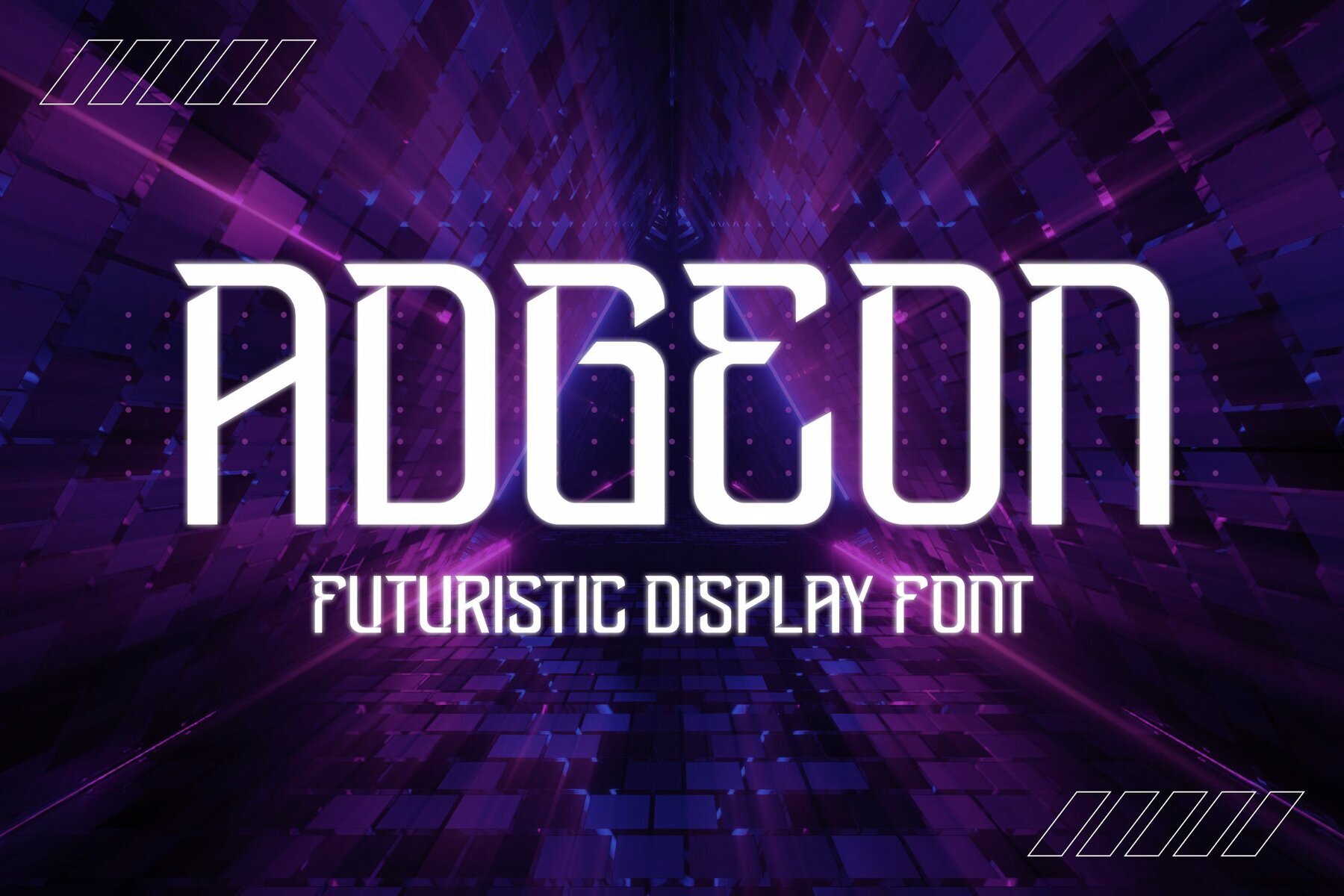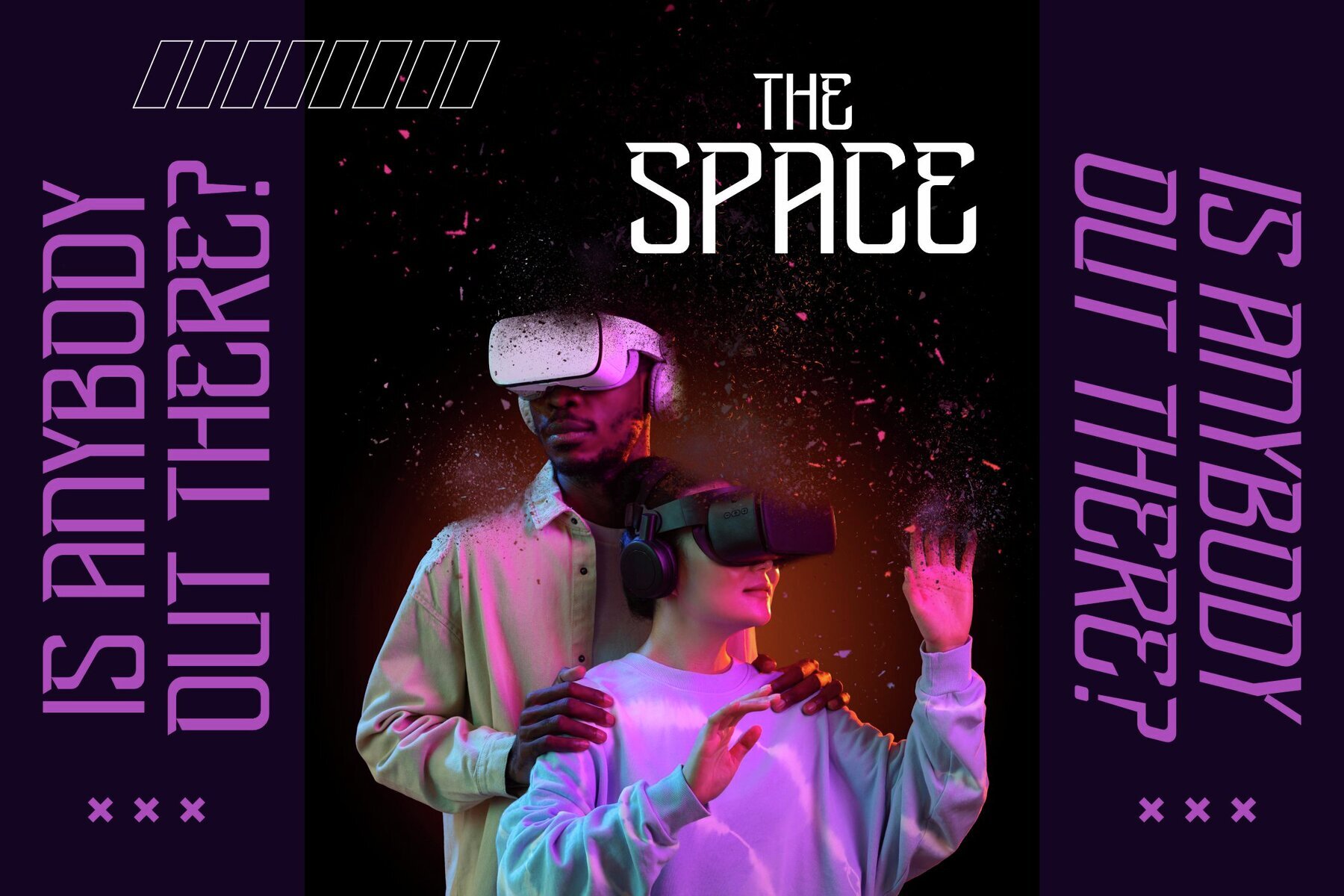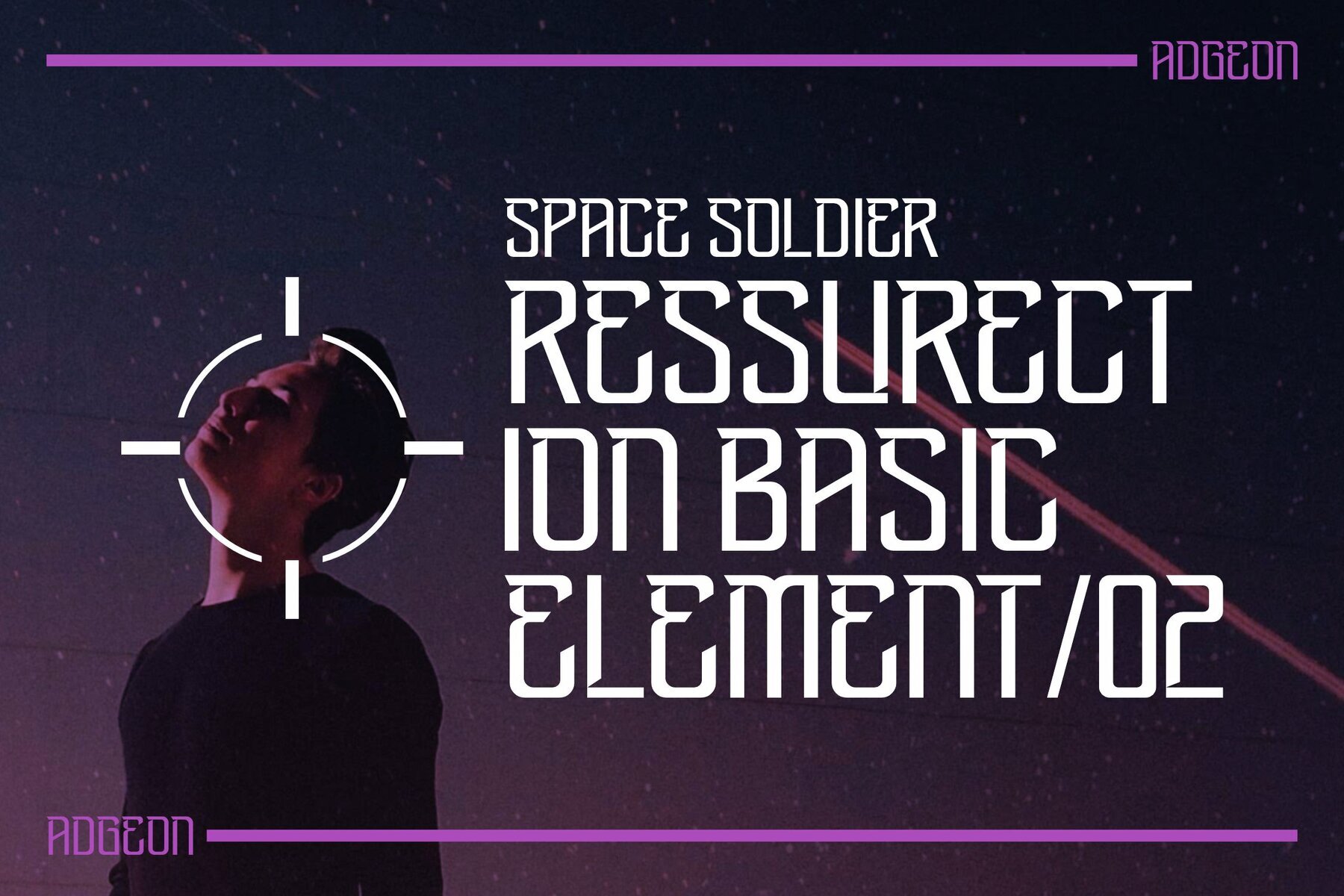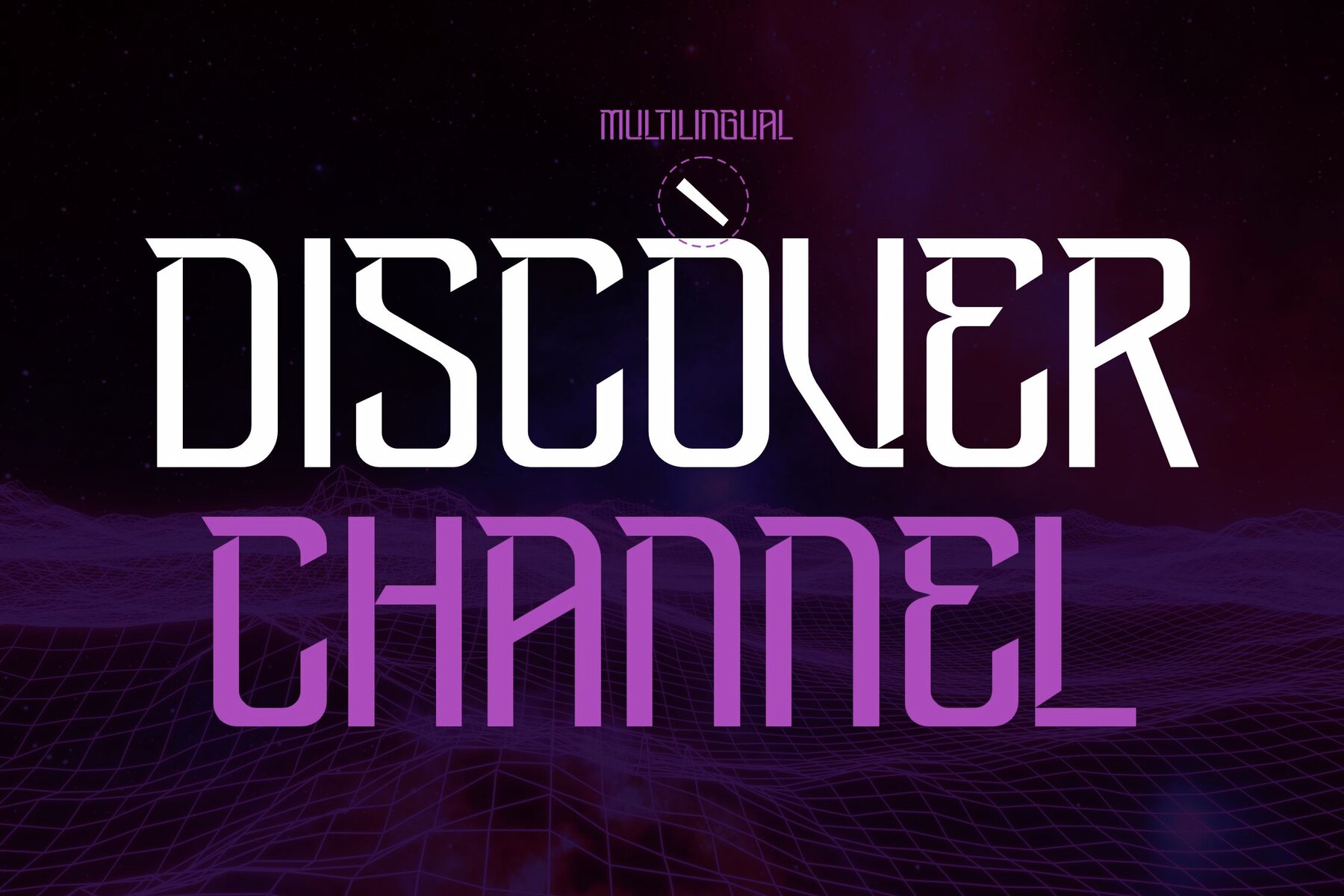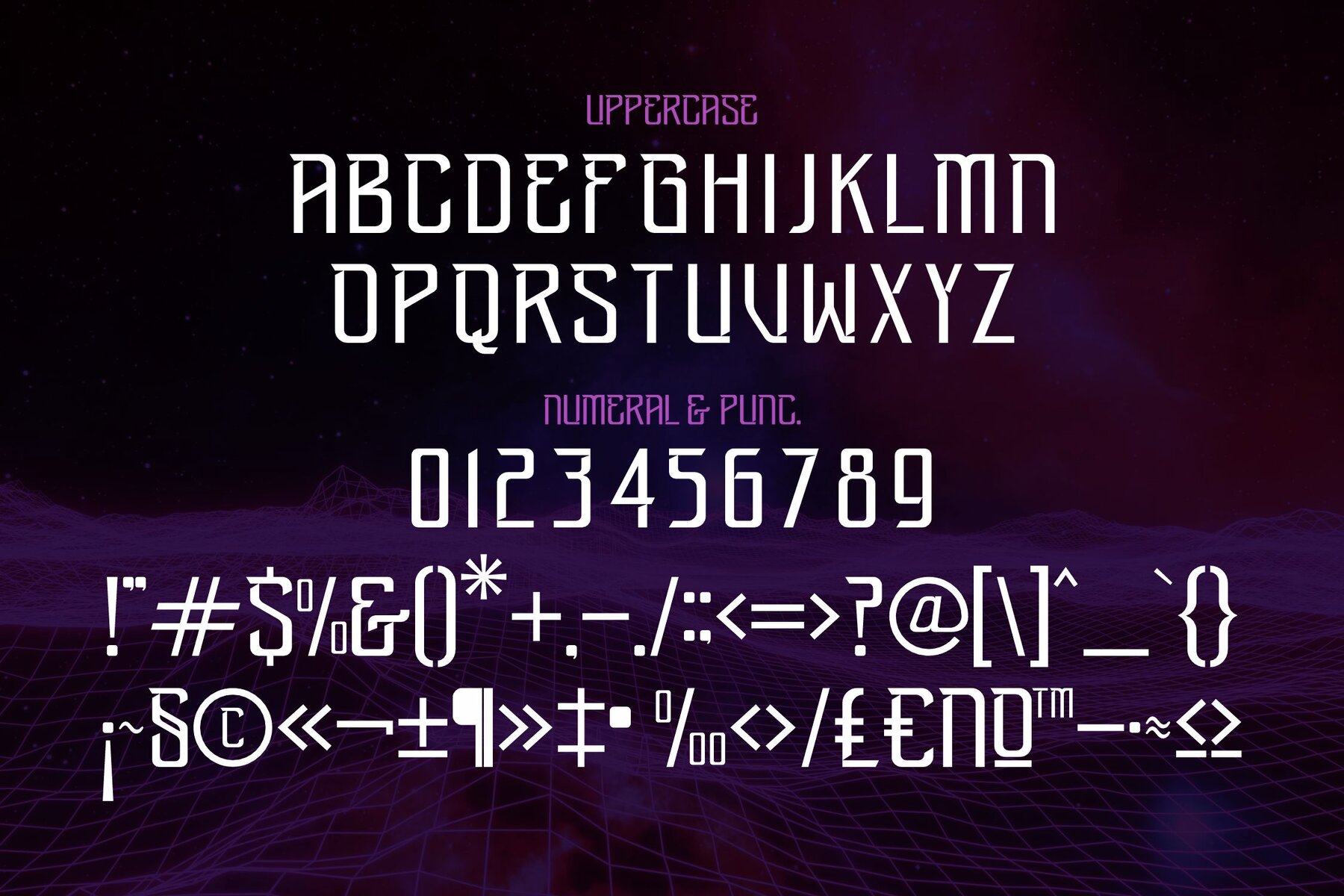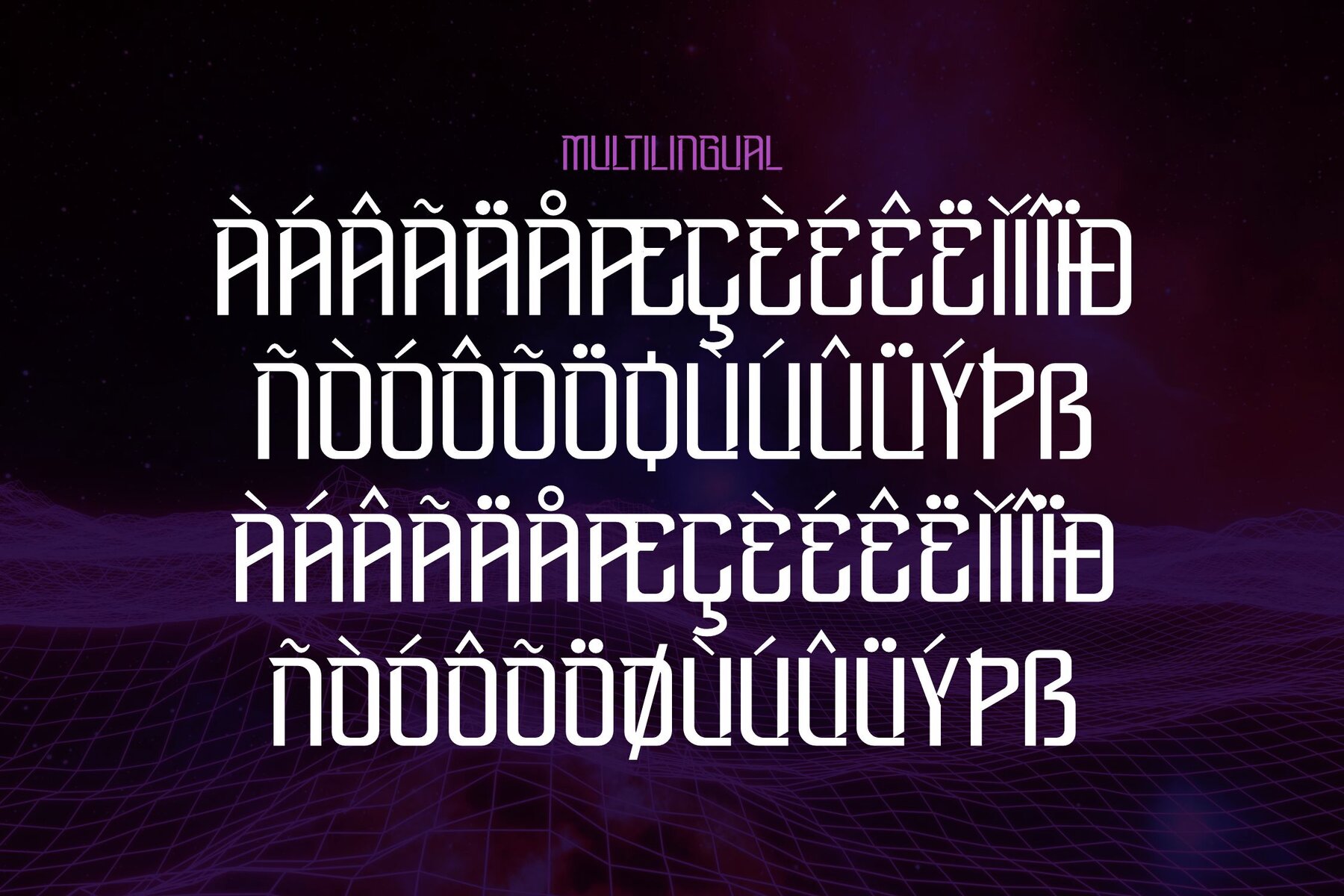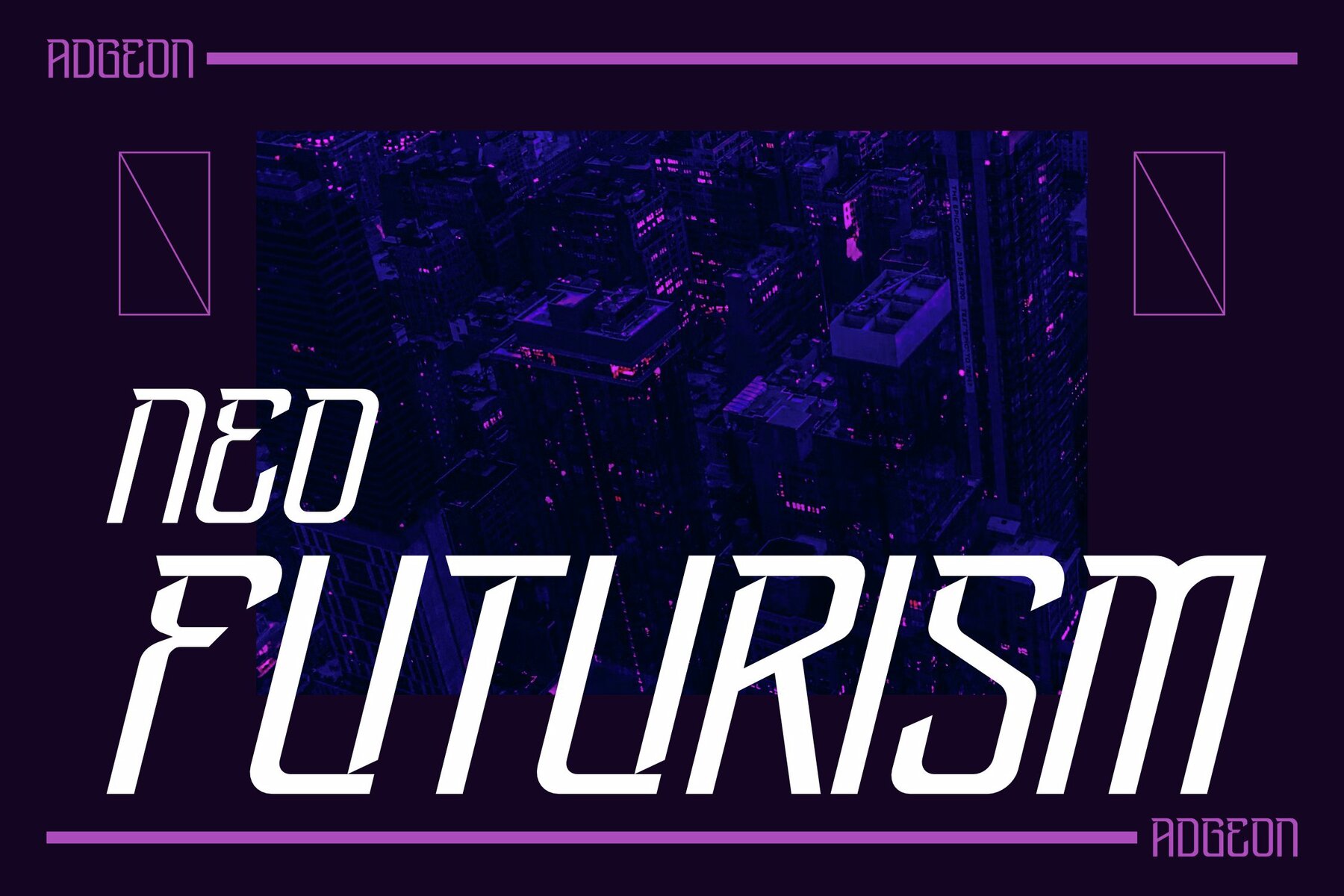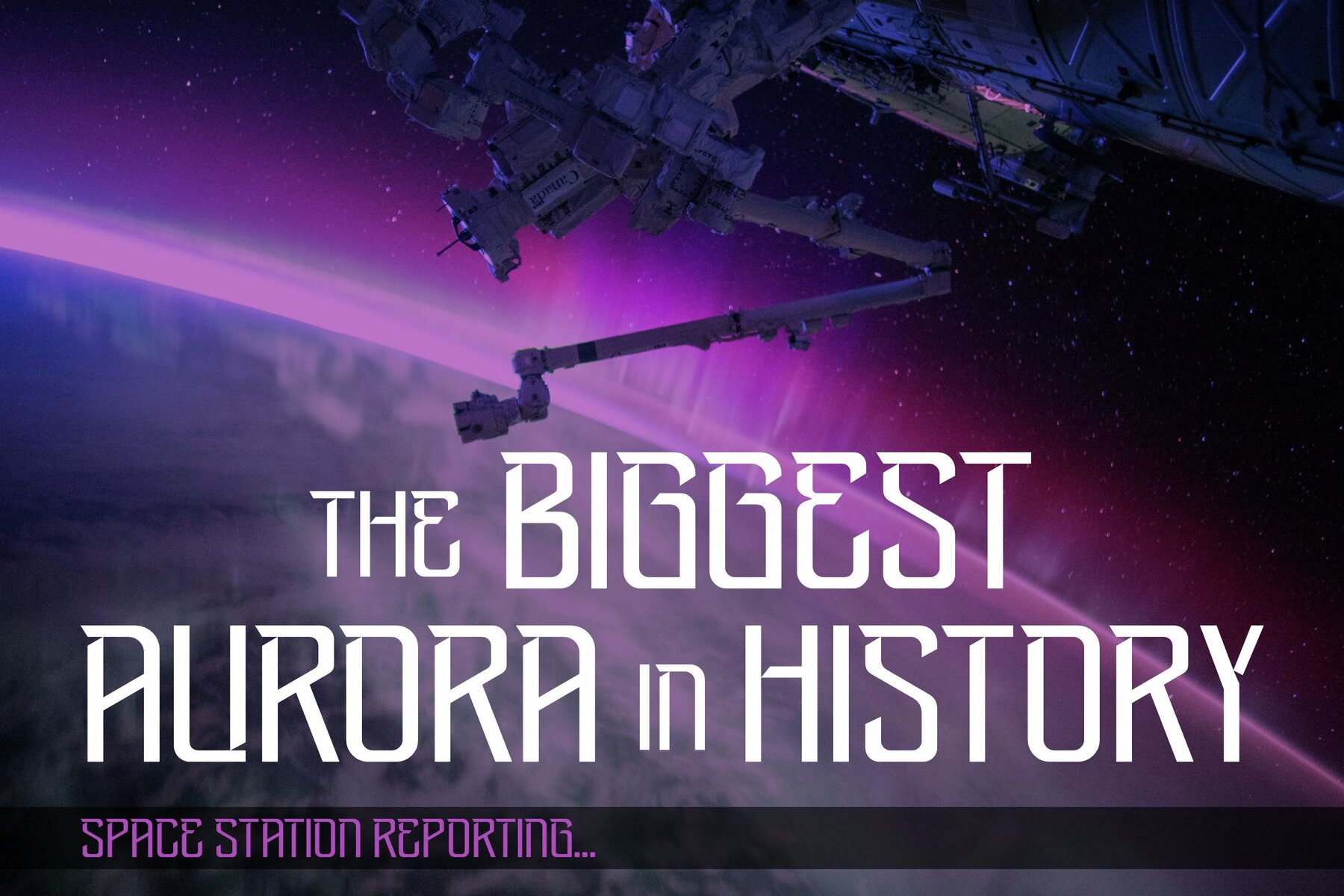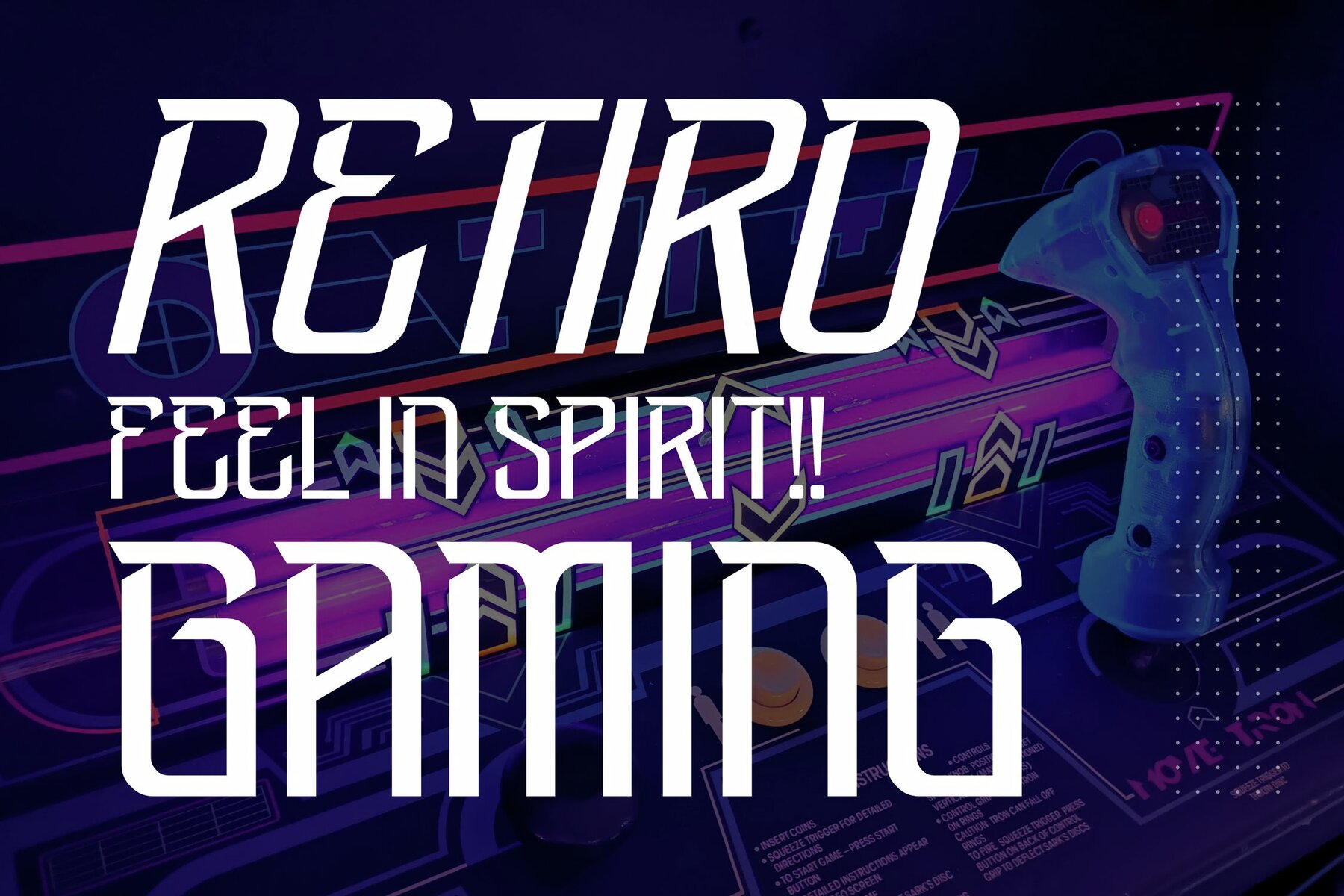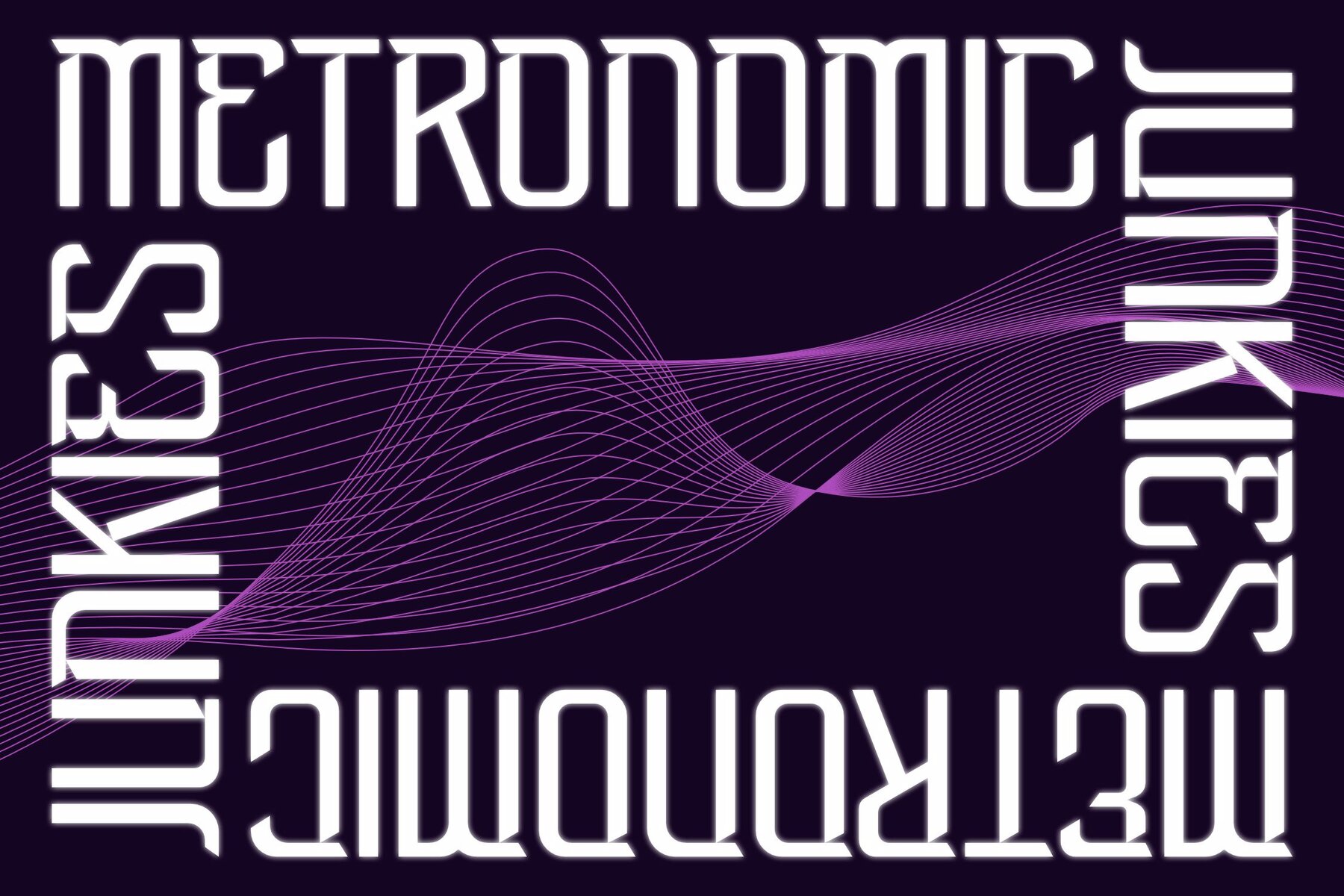
ADGEON Font
Discover ADGEON, a modern and classic serif typeface with a unique elegance. Designed to make a statement, this typeface is ideal for adding a touch of sophistication to logos, book and movie titles, fashion brands, magazines, clothing, and more. This typeface is perfect for those seeking a distinctive and luxurious design element that stands out.ADGEON Typeface by Storytype Studio